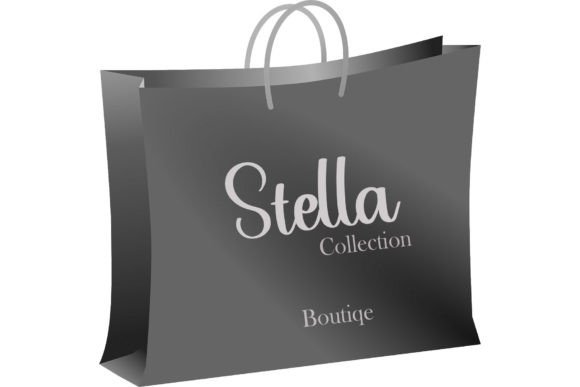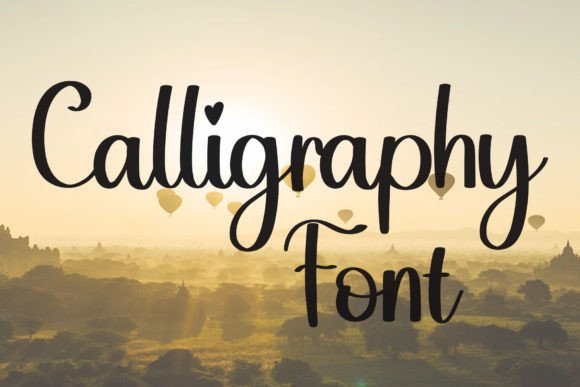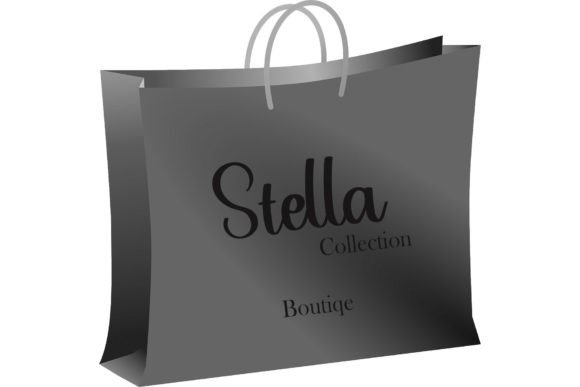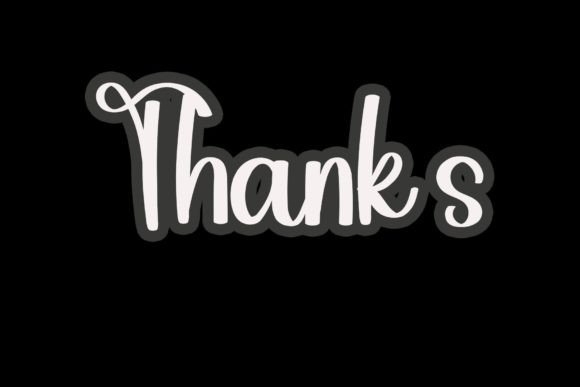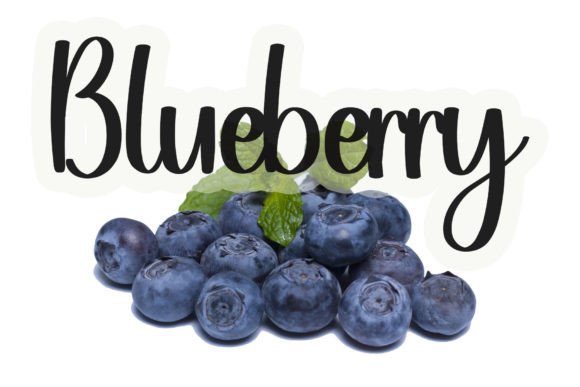
Sunshine Font
Add Elegant Style with Sunshine Font
The Sunshine font is a trendy handwritten script that combines a contemporary vibe with the timeless elegance of classic calligraphy. Its impeccable form and versatile design make it perfect for adding sophistication and class to any creative project.
Perfect for Various Design Applications
The Sunshine font works beautifully across many uses, including branding, logos, invitations, packaging, social media graphics, posters, and more. Its elegant strokes and smooth flow add a polished and memorable touch to your designs.
A Handwritten Script Inspired by Classic Calligraphy
Each character in the Sunshinefont is crafted with flowing lines inspired by traditional calligraphy. This font balances decorative artistry with readability, making it ideal for headlines, logos, and decorative text elements.
Despite its elegant design, the Sunshine font maintains excellent readability across different sizes. Whether used for bold titles or subtle text, it combines classic charm with clarity, making it a versatile choice for many projects.
Elevate Your Designs with Sunshine’s Timeless Spirit
Typography defines your design’s personality, and Sunshine adds a stylish and timeless spirit. If you want to enhance your creative projects with a classy handwritten script, download the Sunshinefont today and create stunning, memorable visuals.